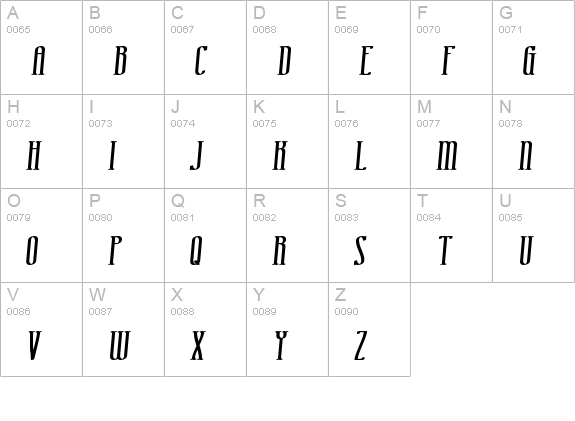
Combustion I BRK Font Details
Combustion I BRK font is a striking and dynamic typeface that exudes energy and power. Its bold, rugged design makes it perfect for adding a touch of strength and intensity to any project. The sharp edges and angular lines give this font a modern and edgy look that is sure to make a statement. What sets Combustion I BRK font apart is that it is free to download at FontsMarket.com, making it accessible to anyone looking to add a touch of fire and passion to their designs. Whether you're working on a poster, logo, or website, Combustion I BRK font is a versatile choice that will help your content stand out and leave a lasting impression. Download it today and unleash the fiery potential of this powerful typeface.